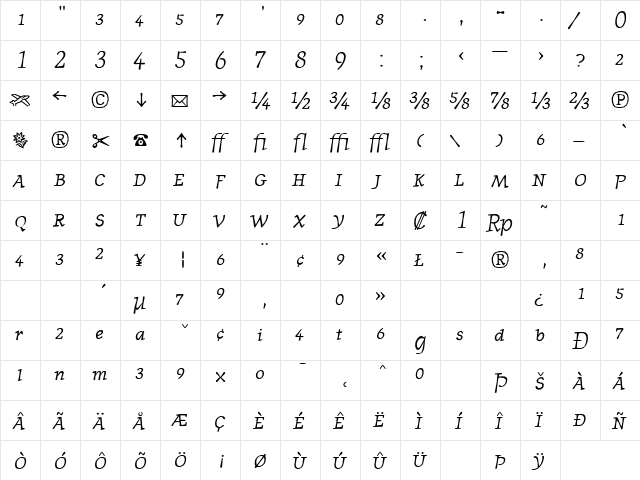
JournalItalicFractions Italic
JournalItalicFractions is a composed and adaptable typeface that performs quietly and consistently across a wide range of design contexts. The dynamic lean of this cut emphasises speed and emphasis in any layout.
Pro Tip: Use JournalItalicFractions for emphasis, pull quotes, and subheadings where its slanted energy can add rhythm to the layout.